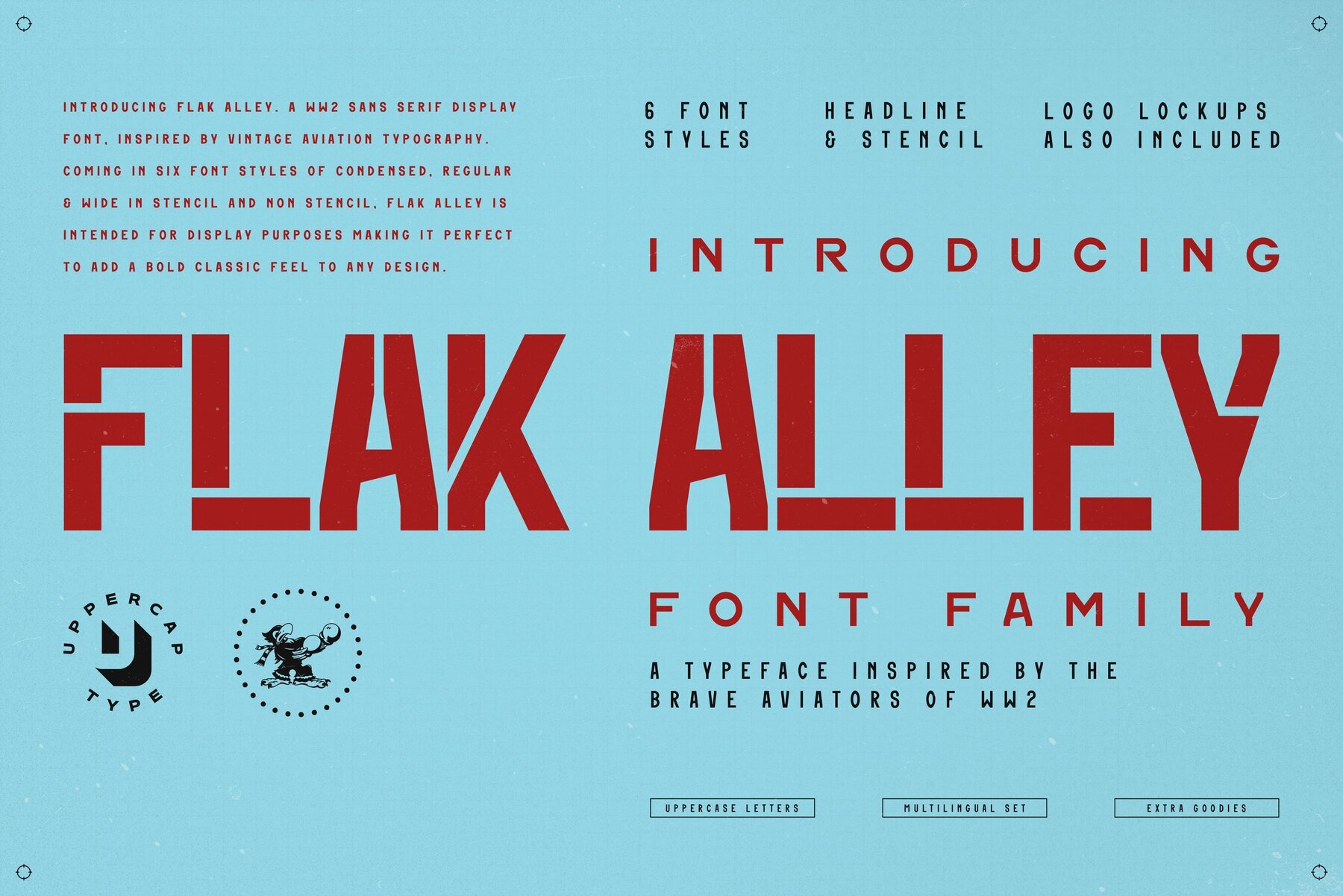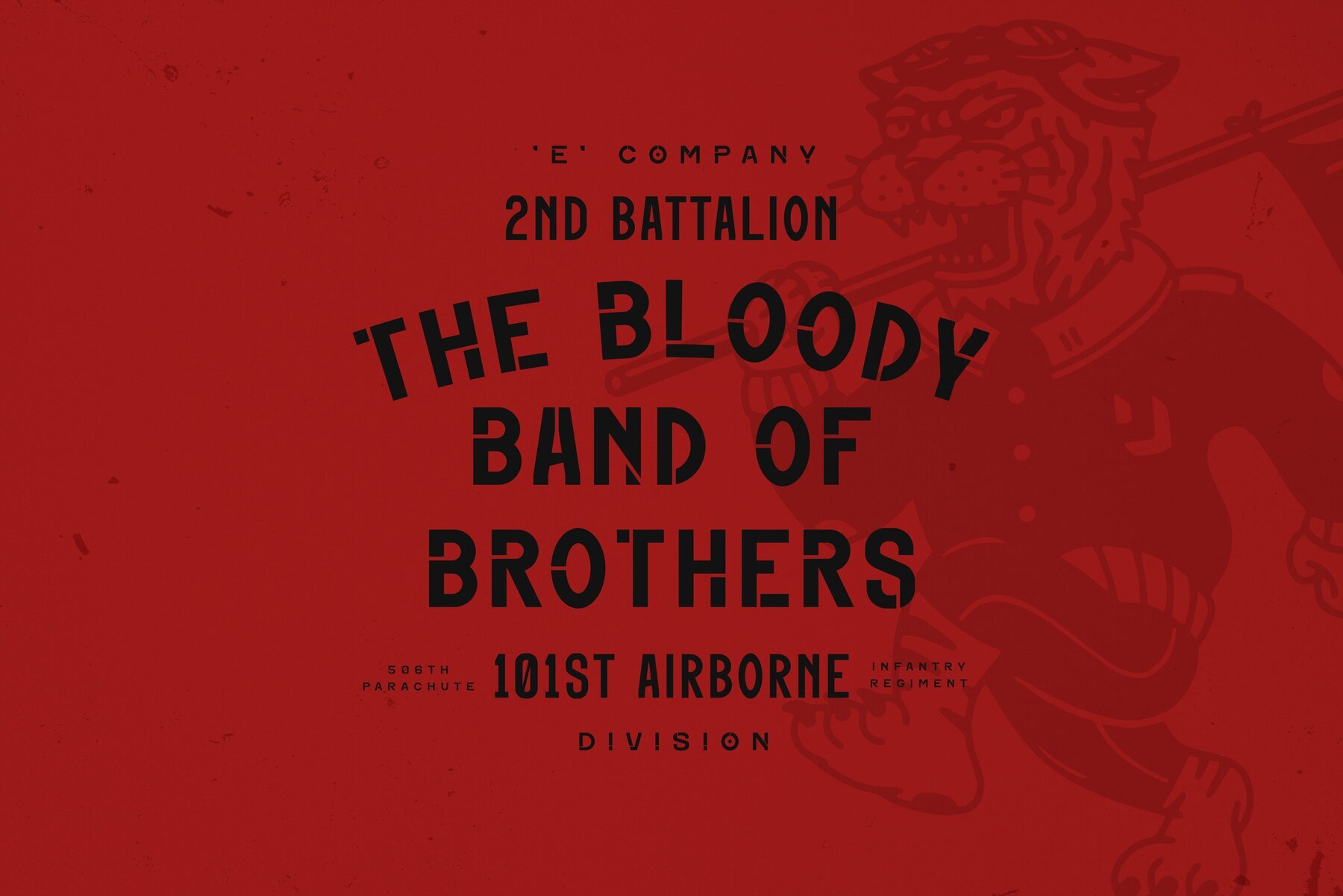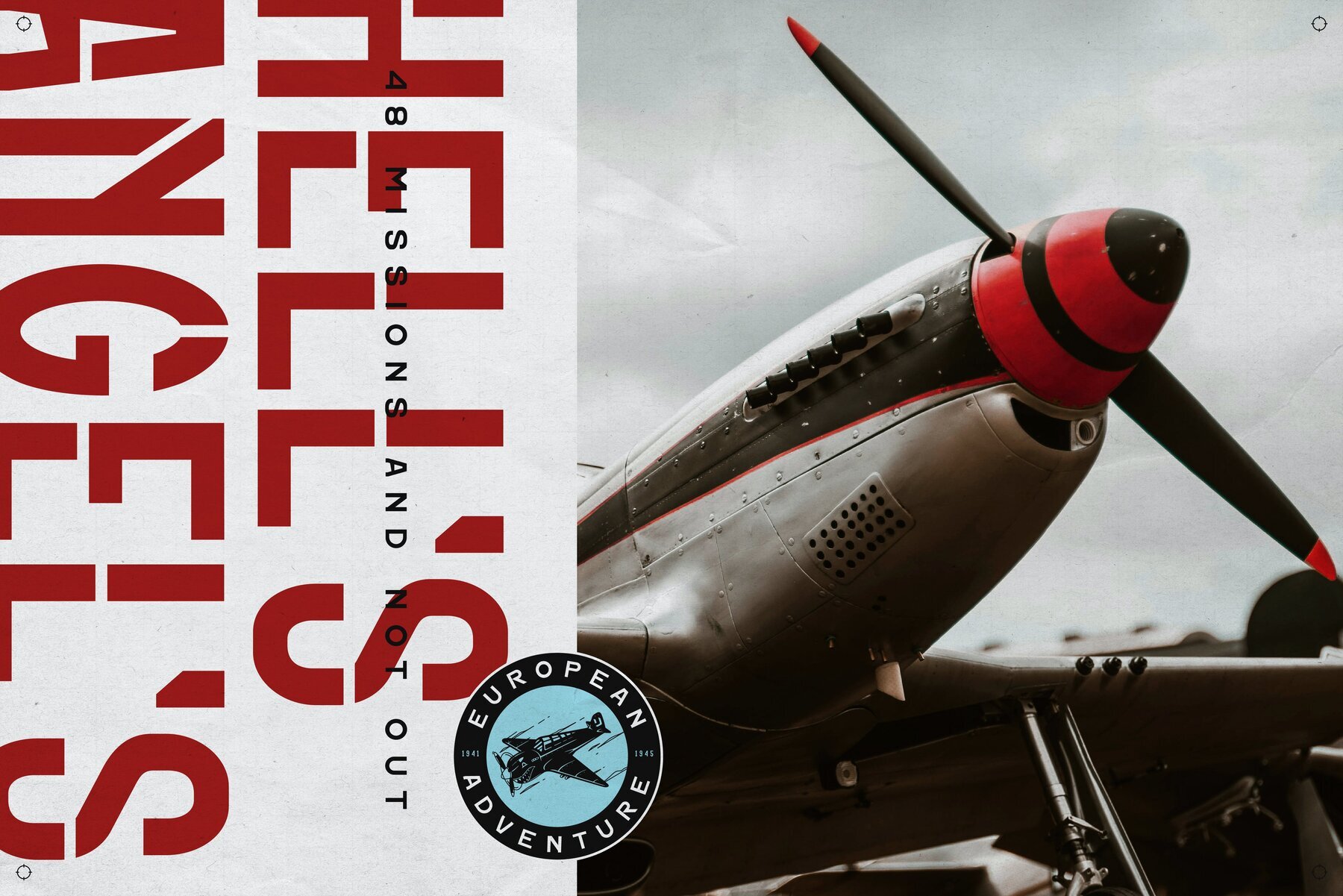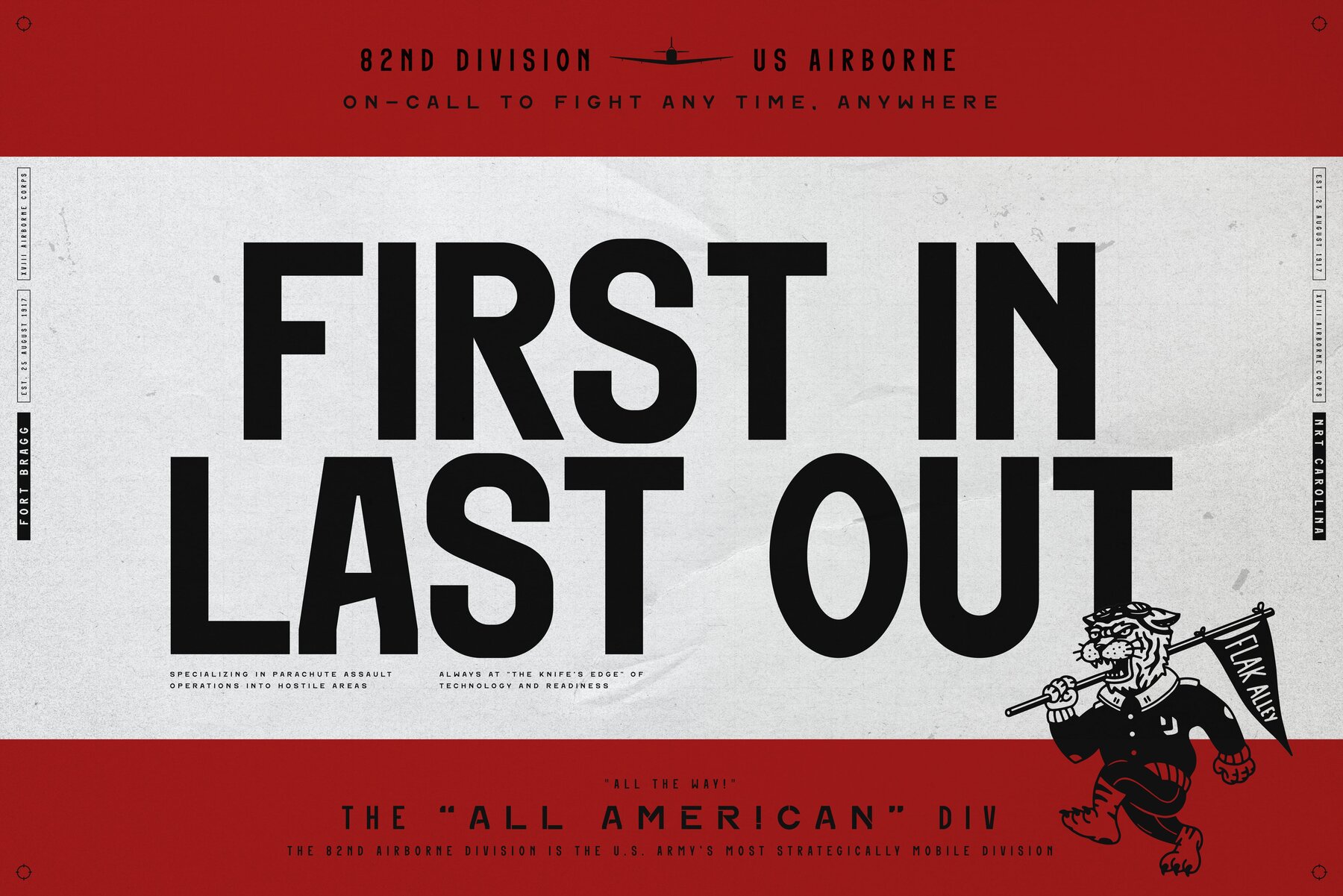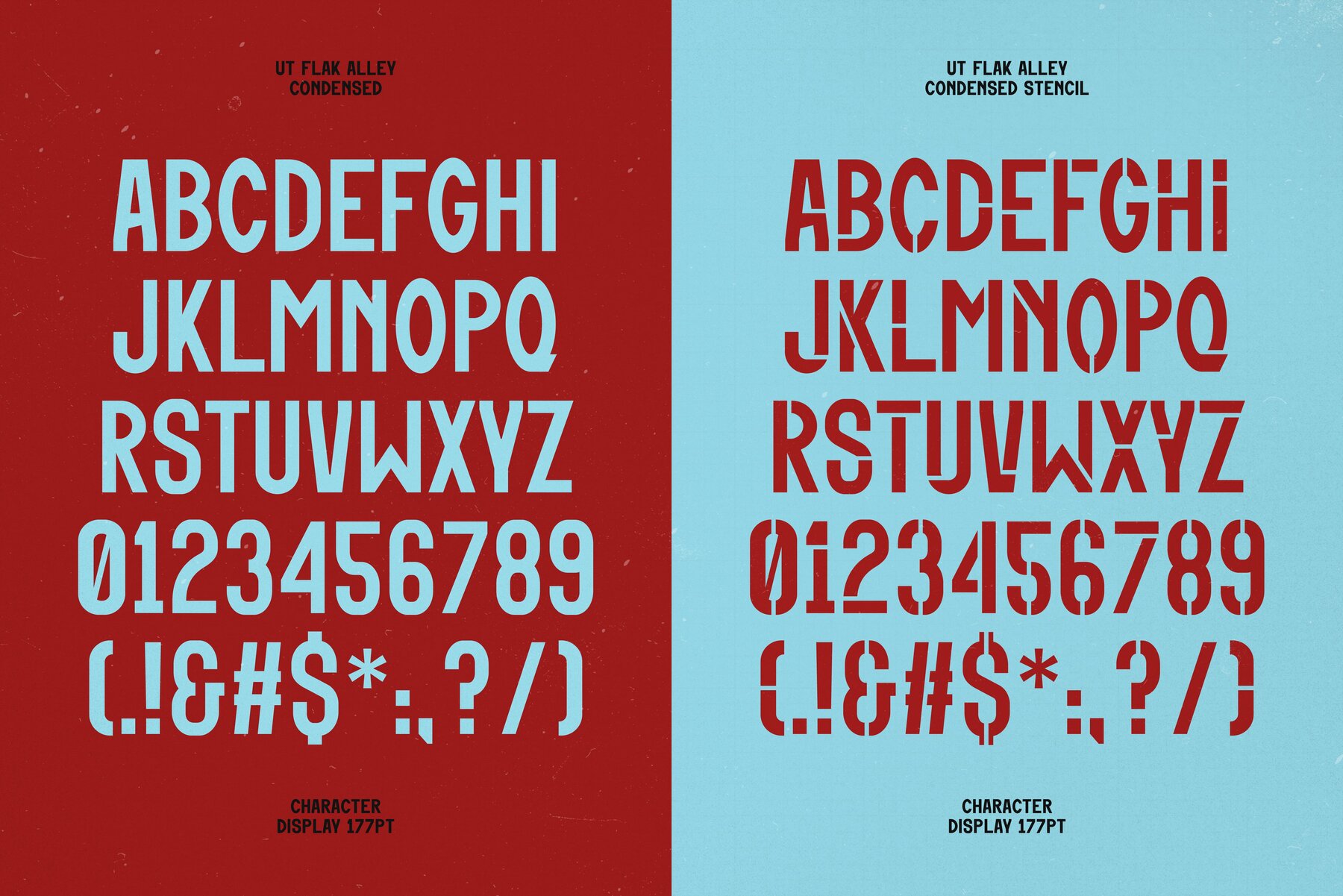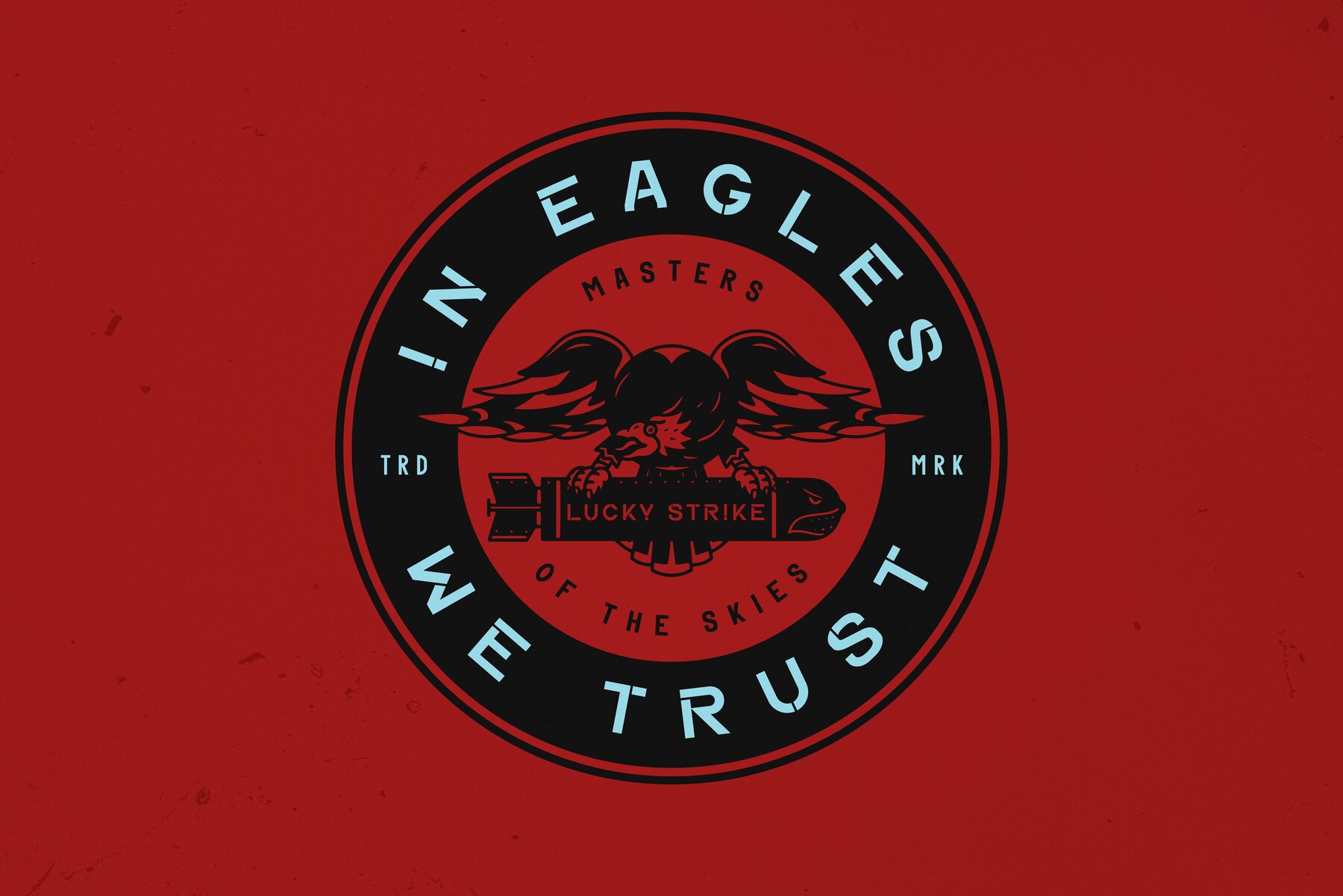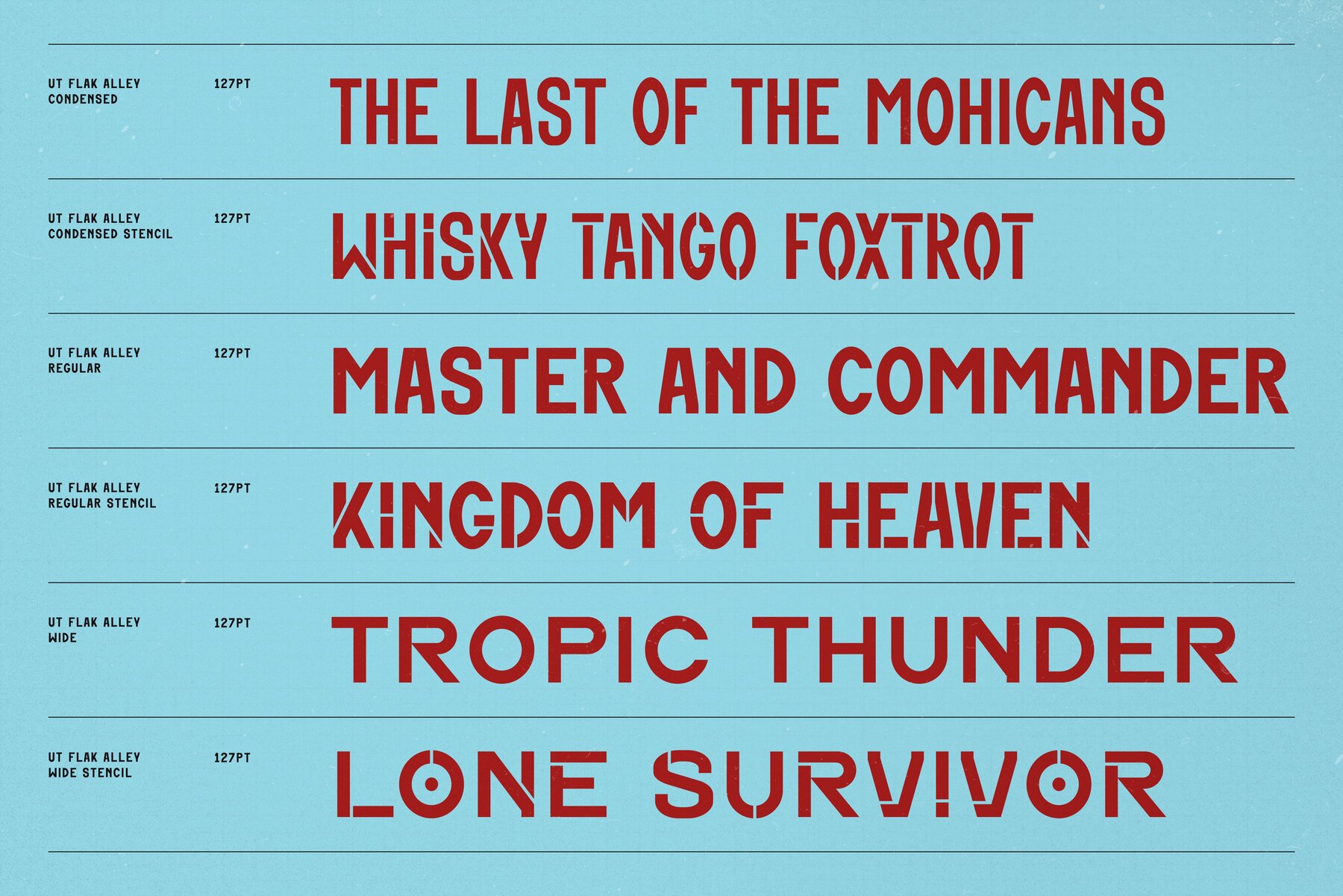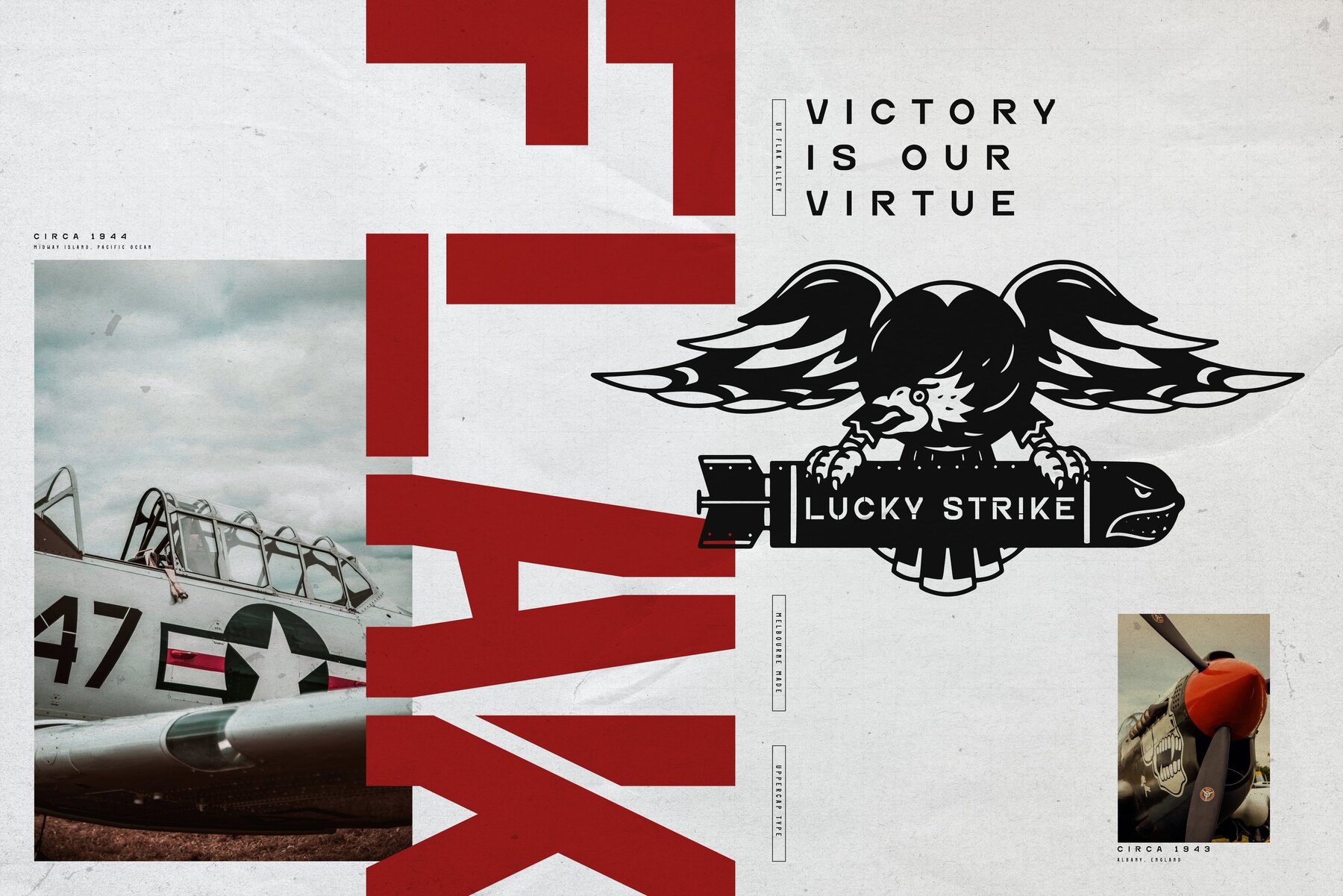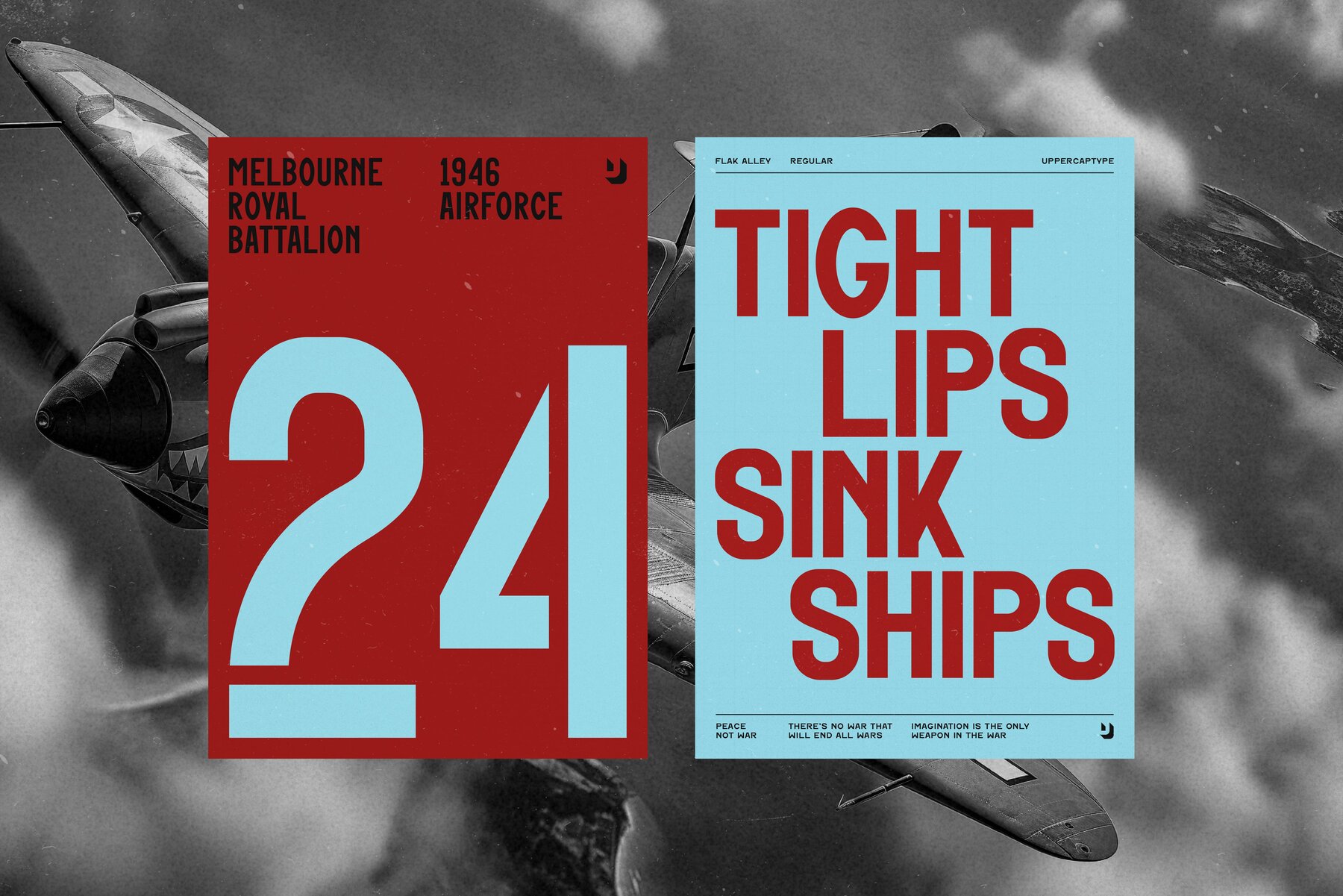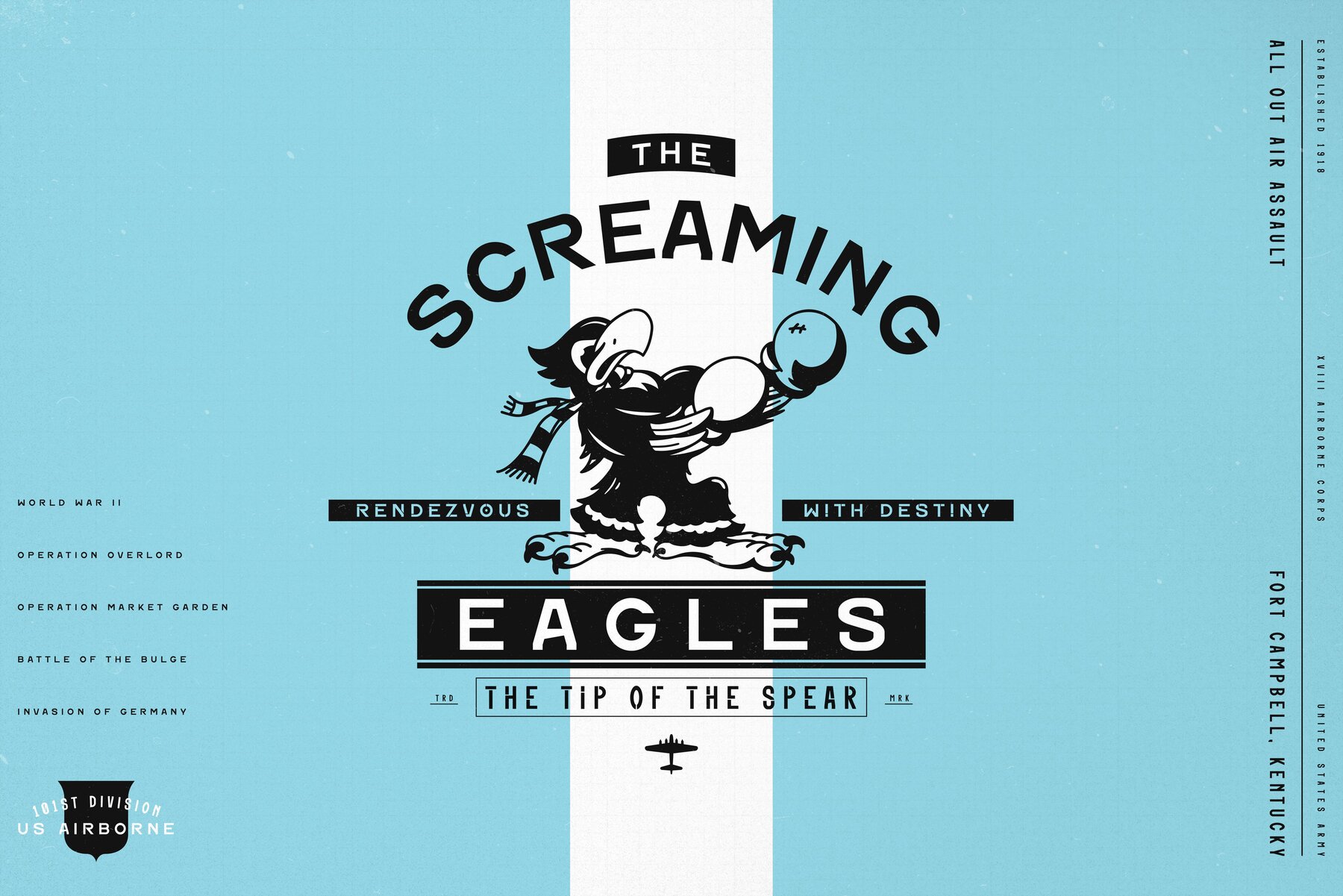
Flak Alley Font
Flak Alley is an evocative sans serif font, drawing inspiration from World War II aviation typography. Designed for display purposes, it brings a bold and classic feel to any project. With six distinctive styles, it combines versatility with a touch of nostalgia.Flak Alley: Vintage Aviation-Inspired Display Font